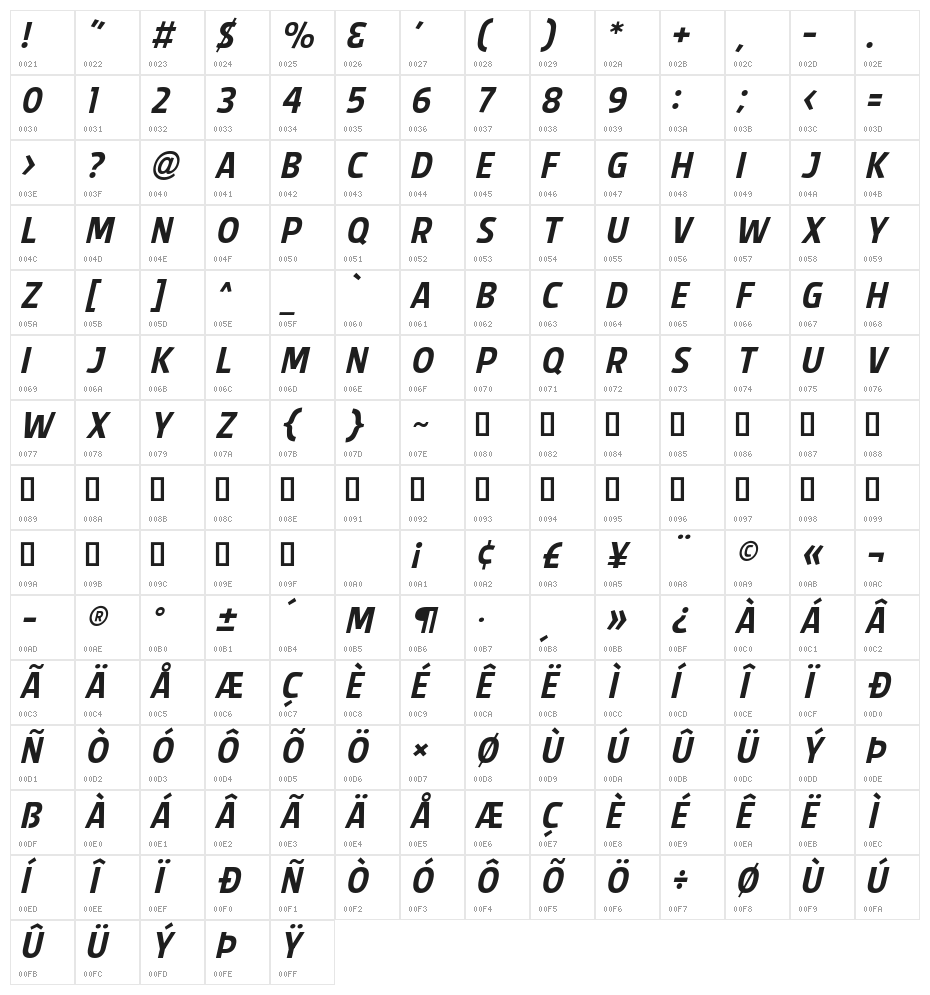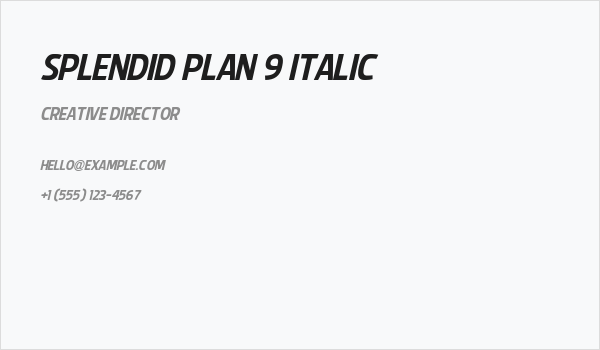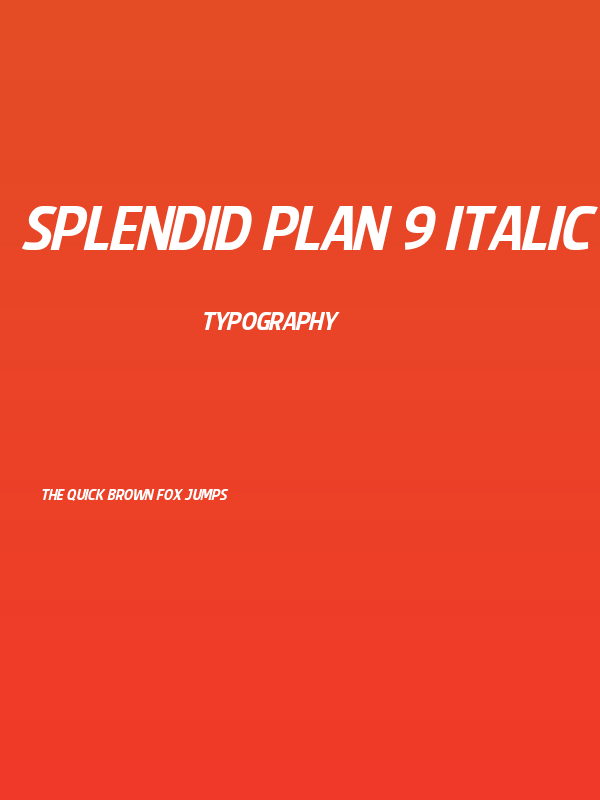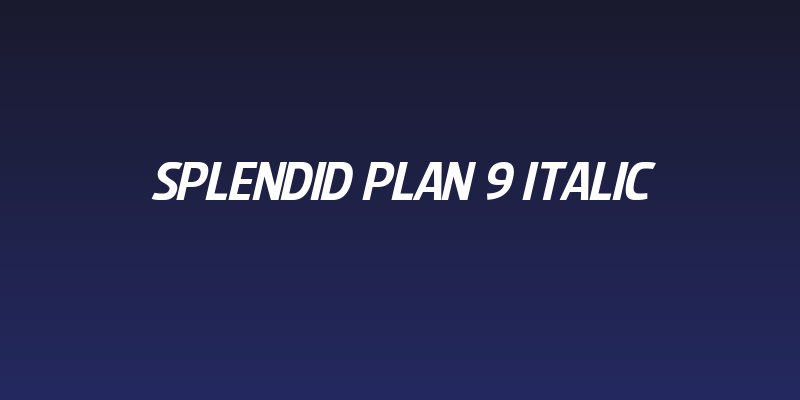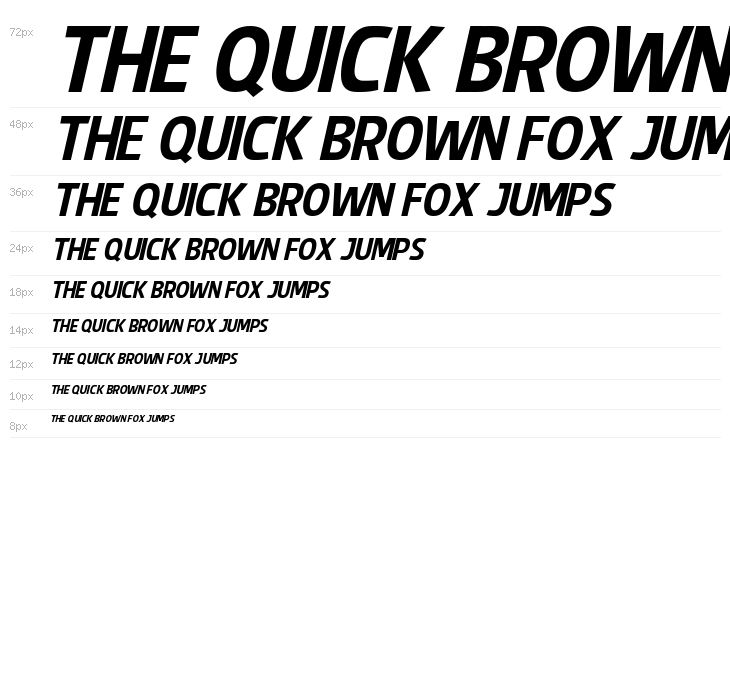
Splendid Plan 9 Italic Font
Splendid Plan 9 Italic Description
This font features a bold and dynamic italic style, characterized by its strong, slanted letterforms that convey a sense of motion and energy. The strokes are thick and consistent, providing a robust appearance that stands out in any design. The characters are slightly condensed, enhancing the compact and efficient use of space. The overall design is modern and sleek, making it suitable for contemporary projects. The numerals and special characters maintain the same bold and italicized characteristics, ensuring uniformity across all text elements.
| Use Case | Headlines, Logos, Advertising |
| Proposed Projects | Ideal for branding, advertising, headlines, and any project requiring a strong, modern aesthetic. |